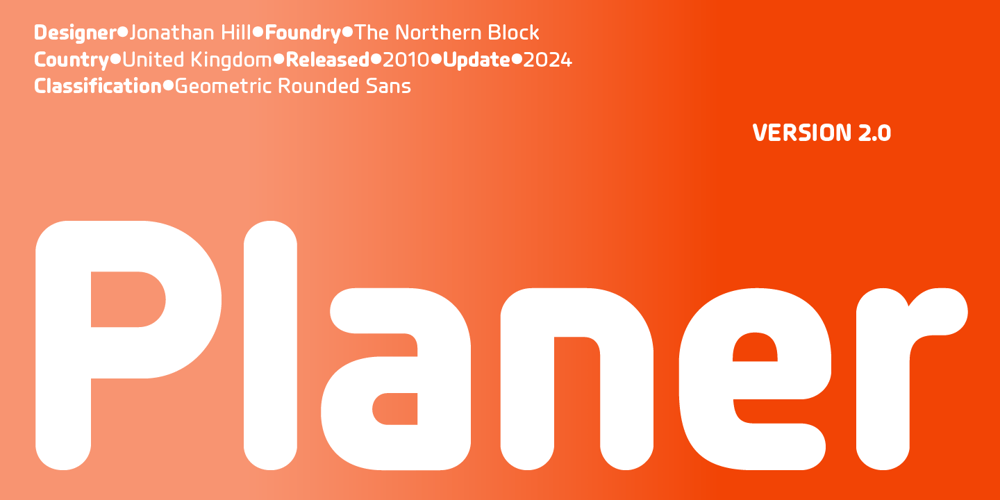
Planer
Planer font
Planer Font Family was designed by Jonathan Hill and published by The Northern Block. Planer contains 16 styles and family package options. Inspired by the honesty and skill of handcrafted woodworking, Planer blends tradition with modernity. Drawing from classic rounded typefaces like VAG Rounded, Planer infuses this heritage with contemporary geometry, resulting in a typeface that balances warmth with precision. Its name, a tribute to the craft of planing, reflects the meticulous attention to detail that creates smooth surfaces—mirrored in its rounded corners, echoing the craftsmanship behind its creation.Version 2.0 of Planer addresses concerns regarding legibility and optical compensation while introducing a new bold weight for impactful headlines. This update reflects a commitment to refining Planer’s functionality and versatility, with the addition of 10 alternative characters enhancing small text readability. OpenType features like circled numbers, case-sensitive forms, and arrows further enrich the typographic toolkit.